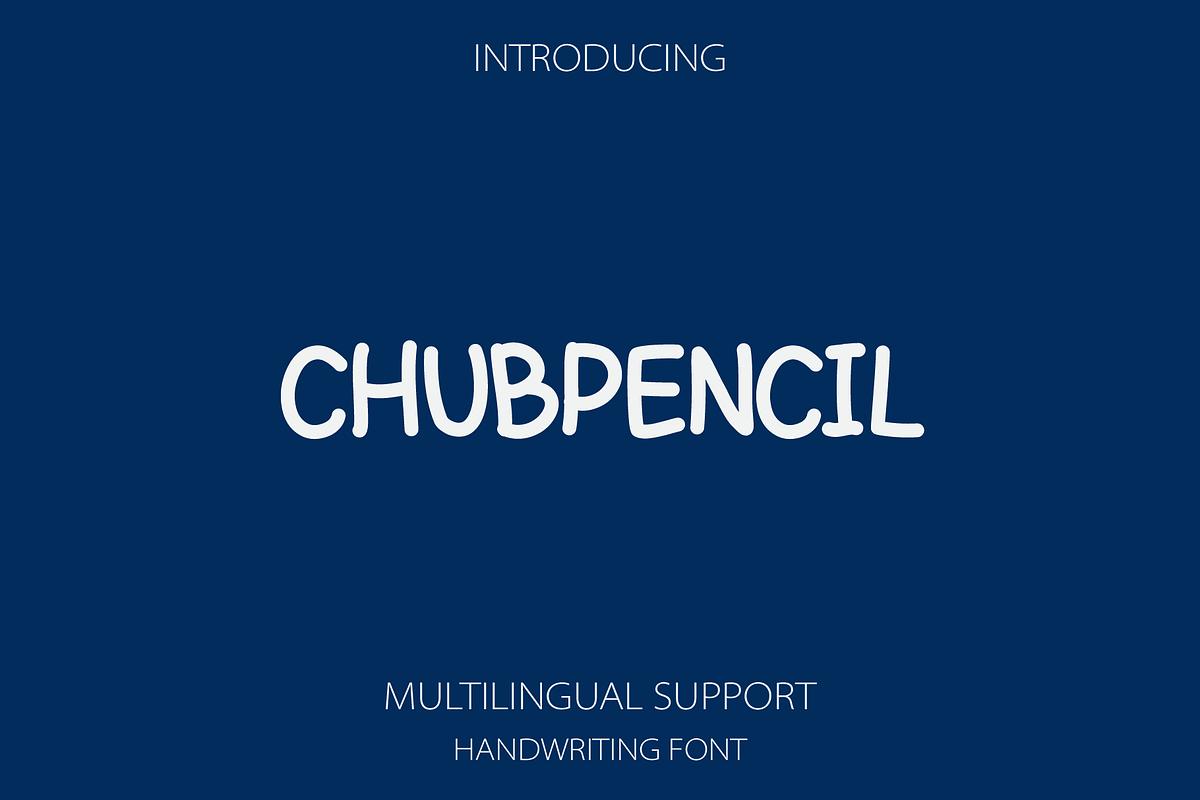
Add a personal and artistic touch to your designs with Chubpencil A Handwriting Font Free Download — a playful and unique handwritten font that adds character and charm. Perfect for greeting cards, invitations, logos, social media posts, and any creative project that needs a friendly, hand-drawn feel.
Chubpencil features smooth, flowing strokes that give your text a natural and organic look. It includes uppercase and lowercase letters, punctuation, numerals, and multilingual support, offering versatility for all your creative needs.